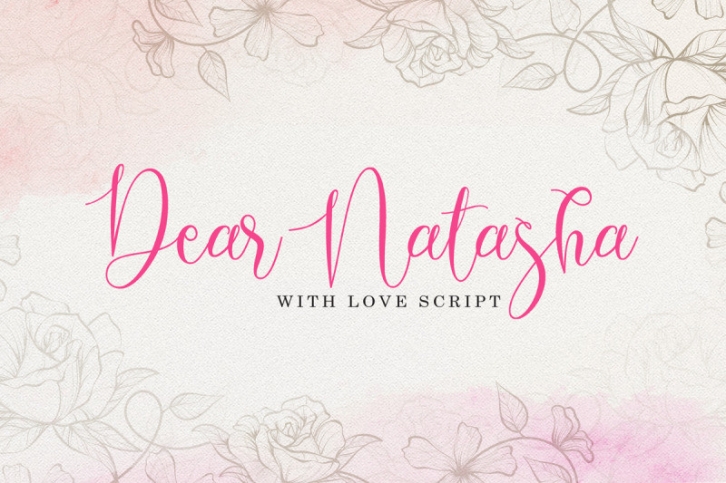
Dear Natasha is a simple and delicate script font which is equipped with swash and lowercase alternatives. It gives a natural and elegant feel, very suitable for typographic designs, wedding invitations and more.